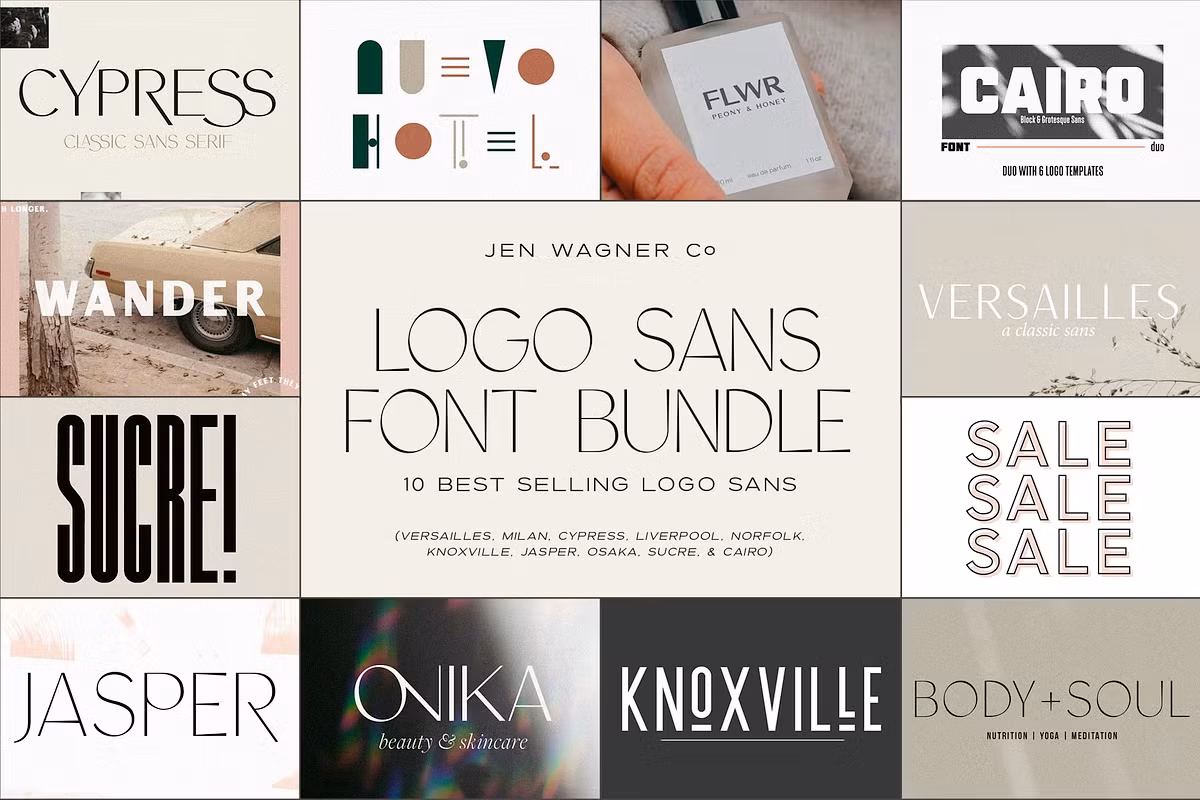
Modern Logo Sans Font Bundle Free Download is a carefully curated collection of sleek, contemporary sans-serif fonts perfect for creating impactful logos, branding, and marketing materials. With a range of styles and weights, this bundle offers versatility for all your design projects, providing clean, modern typography that ensures your message stands out with clarity and professionalism.